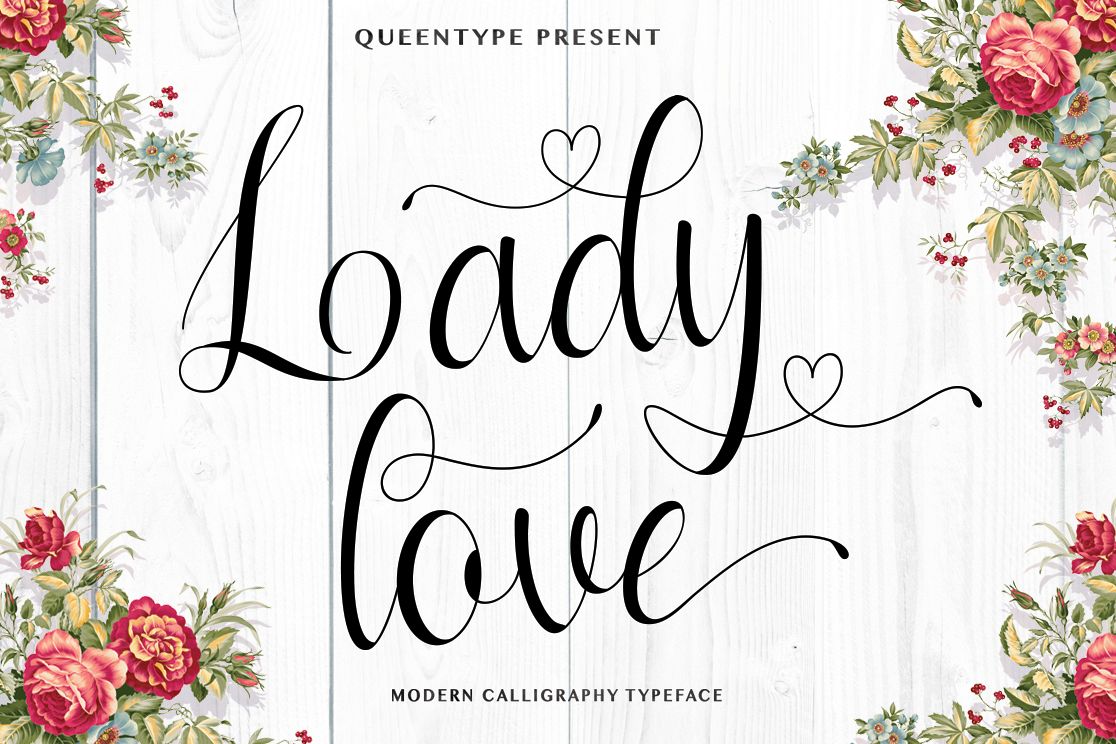
Ladylove Script
?? --- Queentype Introducing : Ladylove Script Typeface --- ??
Ladylove Script Typeface is a beautiful Modern
Calligraphy Style give the Elegant looks. Alternate character contain
with Alternate and more. You can access all those alternate characters
Great for Apparel Brand, Logos, printed quotes, invitations, image
overlays, greeting cards, product packaging, text headers, any greeting
cards, book cover, Painting design style, or any design that needs
natural and personal touch & whatever else your imagination holds!
Mix and match the alternate characters to add an attractive message to
your design.